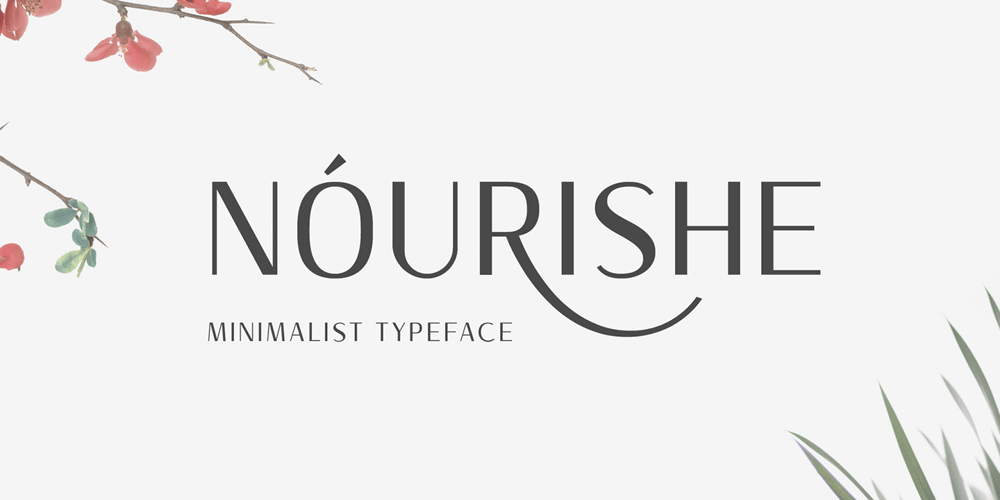
Nourishe Font Family was designed by Ahmad Ramzi Fahruddin and published by Arterfak Project. Nourishe contains 2 styles and family package options. Nourishe is our our brand new minimalist font, made with the combination of duo-line. A sans serif font which is suitable for branding and editorial design. As we know, sans-serif nowadays becomes a part of the new trending of graphic design in typography. Nourishe is a great choice to make your design more elegant with minimalist strokes and feminine curves. This font family has OpenType features like some alternates to gives you an option. Also complete with some swashes that you can apply to get more beautiful looks. Nourishe has 2 styles : – Inline: Suitable for headline in a poster, flyer or label. the empty space in every stroke give the attractive-typographic taste – Normal: Recommended for an editorial like sub-headline, quotes, and body text. Nourishe includes : – Uppercase – Lowercase – Symbols – Numerals – Punctuation – Multilingual accents – Stylistic Alternates – Swashes Well, thank you for visiting and hope you like it!